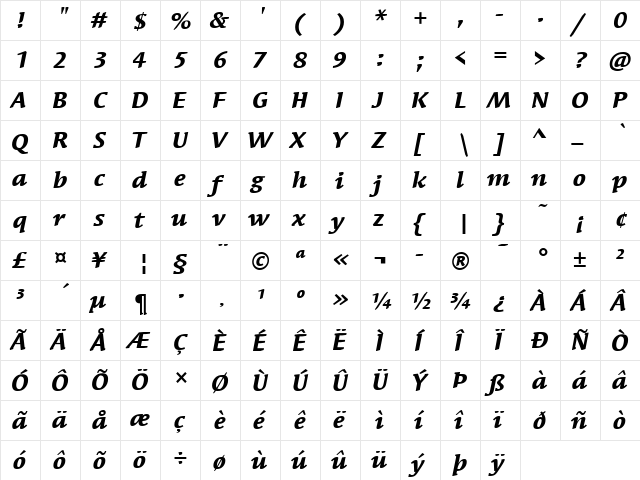
SyndorITC Bold Italic Font Preview
Design Context for SyndorITC Typeface
SyndorITC takes a measured approach to typography — its balanced proportions and neutral character make it a reliable workhorse for both digital and print work. The dynamic lean of this cut emphasises speed and emphasis in any layout. The heavy weight commands attention and anchors typographic hierarchies.
Pro Tip: Try SyndorITC for annotation and caption copy alongside an upright companion — the contrast in angle creates a dynamic but ordered typographic system.